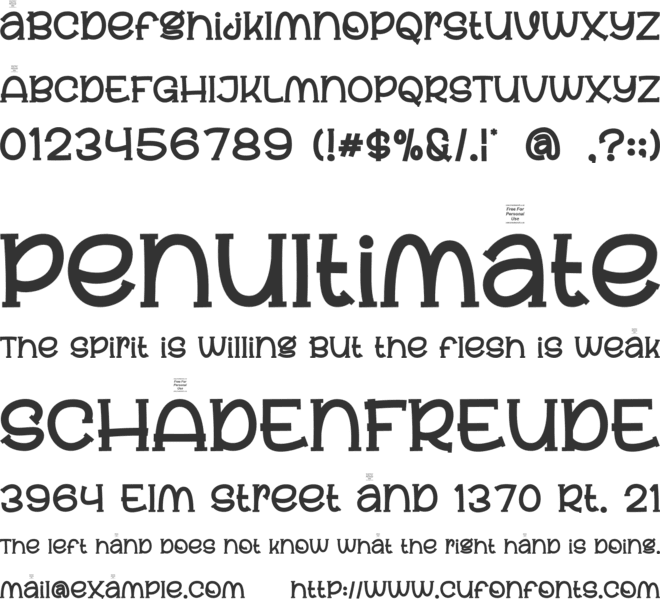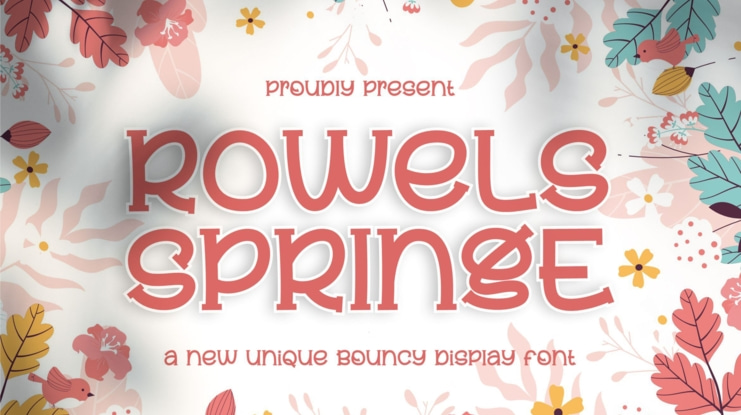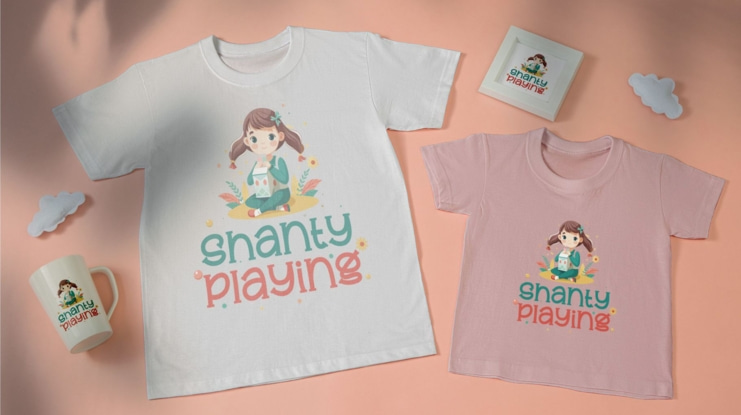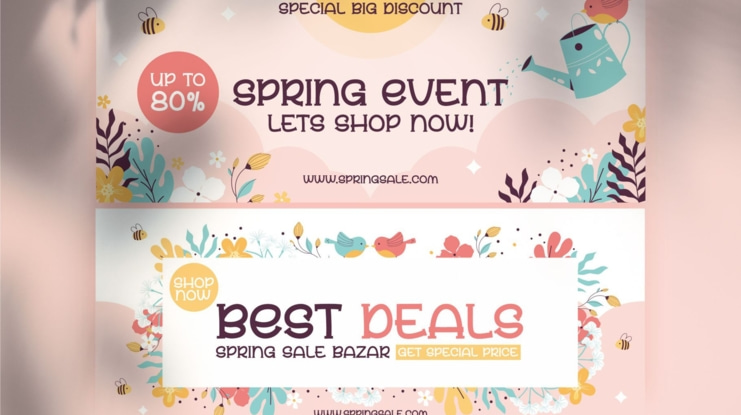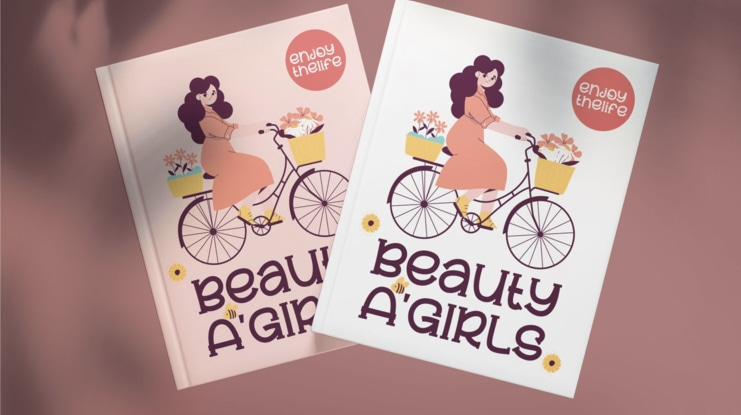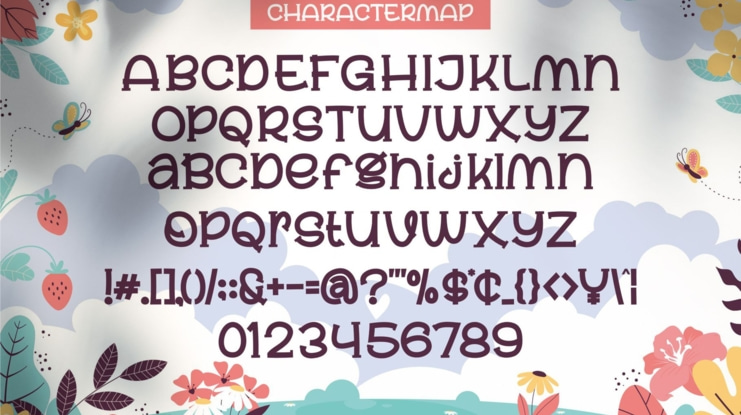
Rowels Springe Font
Introducing Rowels Springe The New Unique Display Font is a modern, trendy, bouncy and cute display font. It has a unique character with wood theme. It is perfect to be combined with invitation card designs, company logos, movie titles, movie names, business cards, book titles, brand names and various other designs.
- Uppercase and lowercase
- Numbering and Punctuation
Rowels Springe font preview